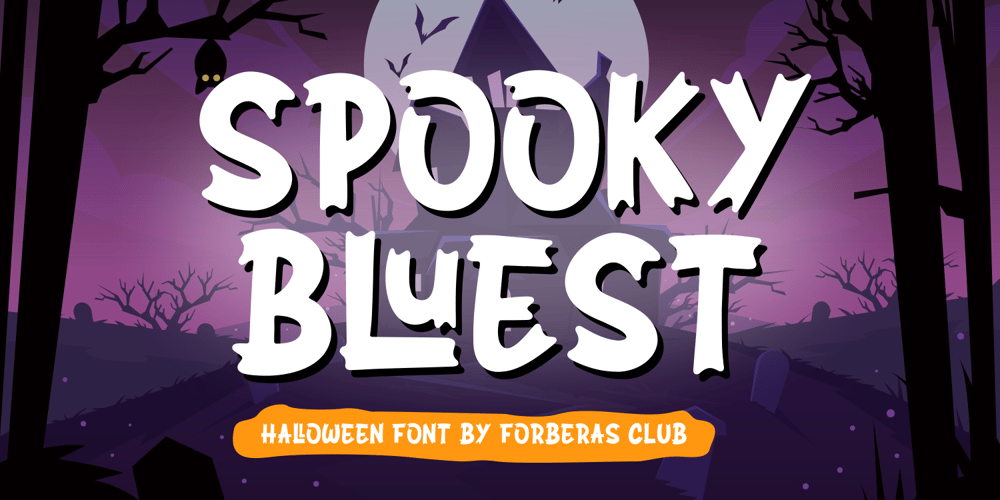
Spooky Bluest Font Family was designed by ANGGI HERMAWAN and published by Forberas Club. Spooky Bluest contains 1 styles and family package options. Introducing Spooky Bluest by Forberas, yet playful but still serious. You can use this as decorative material for your upcoming project. Your review and response are most welcome.